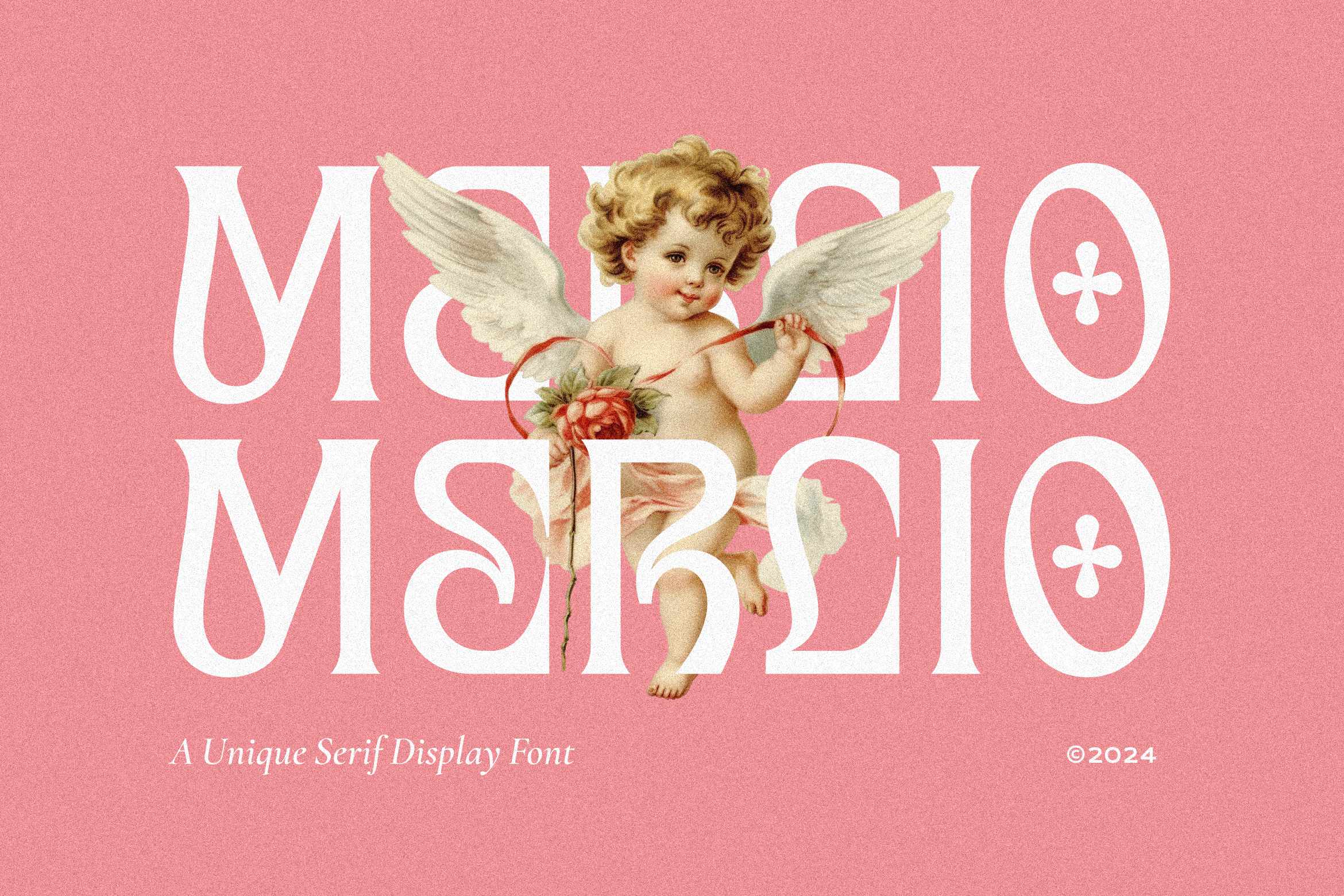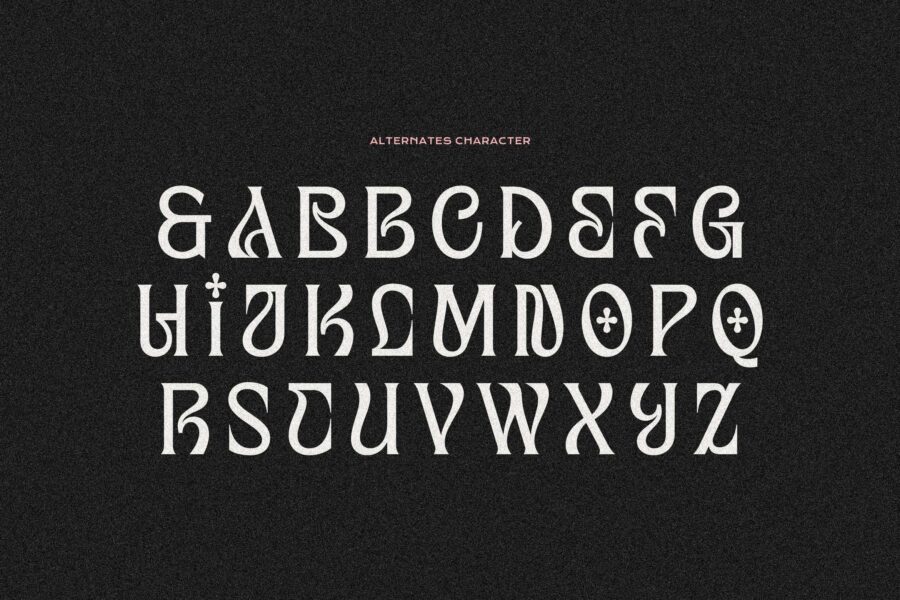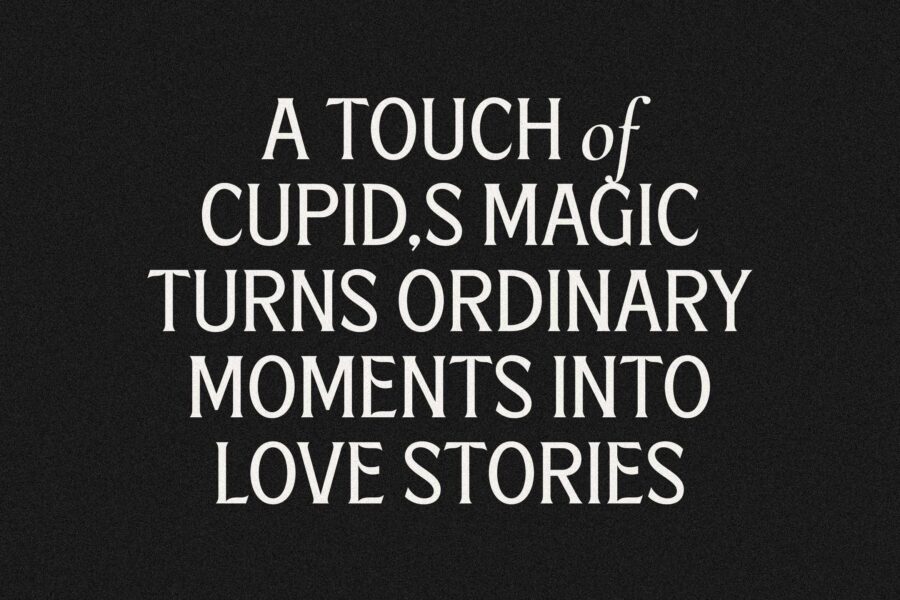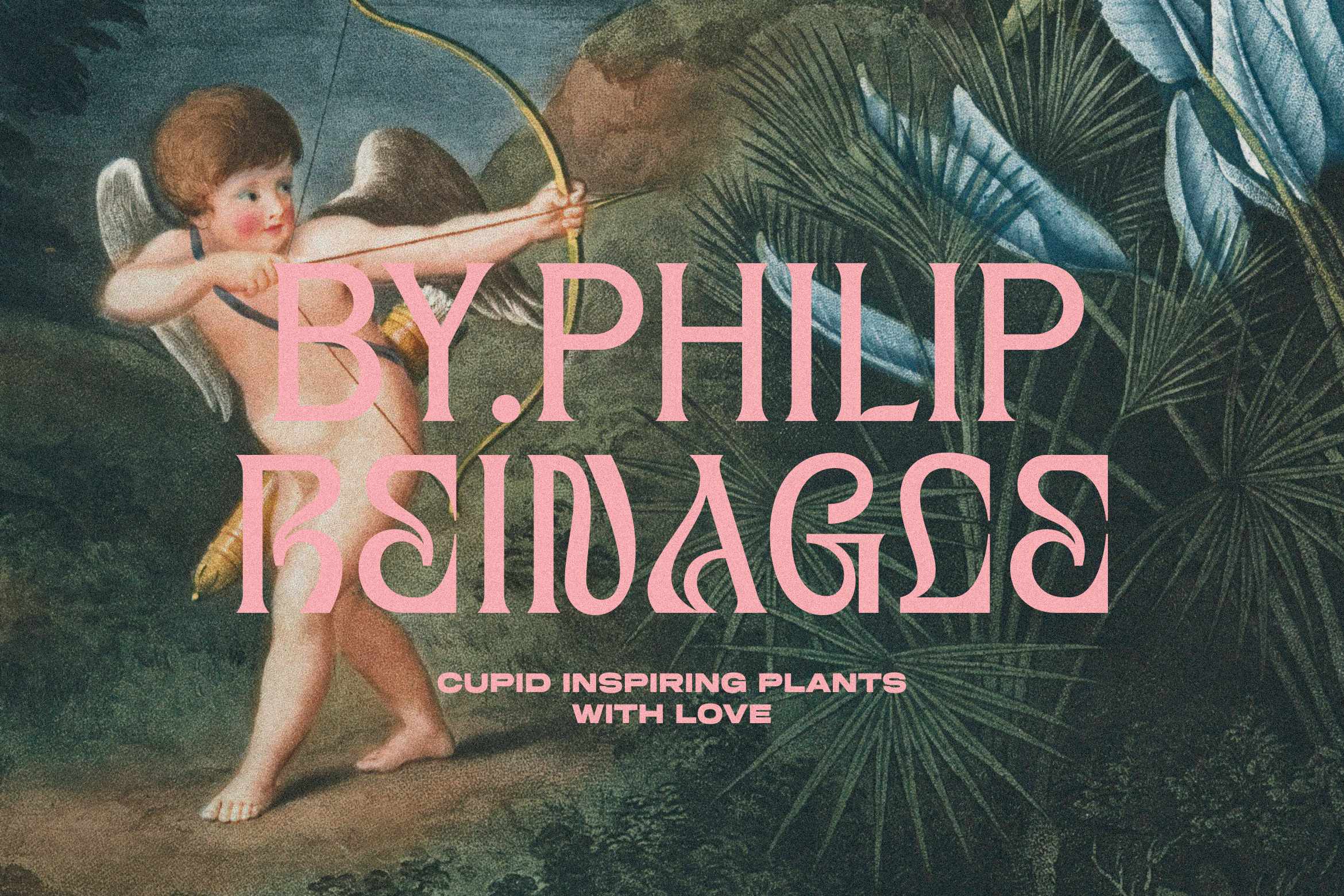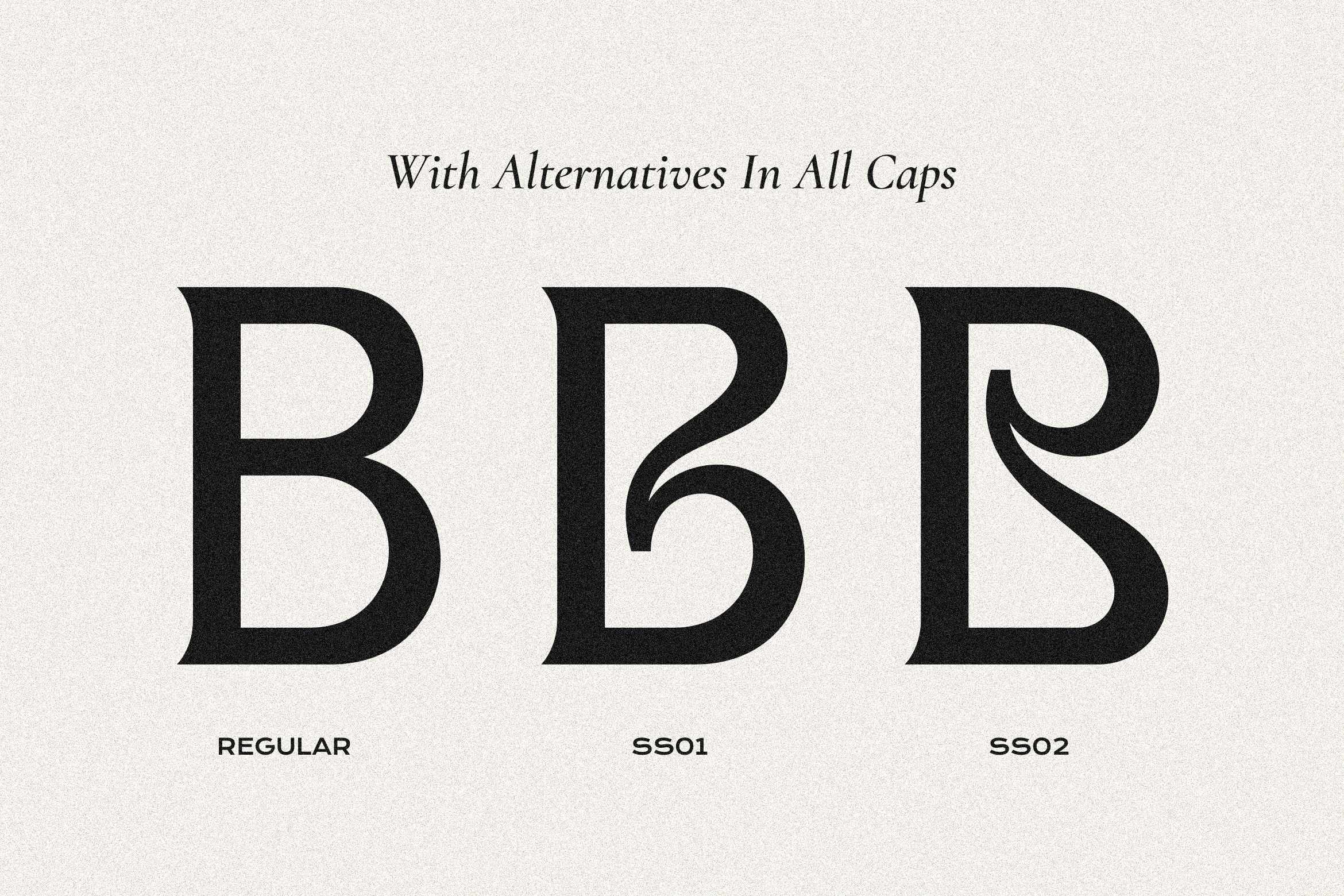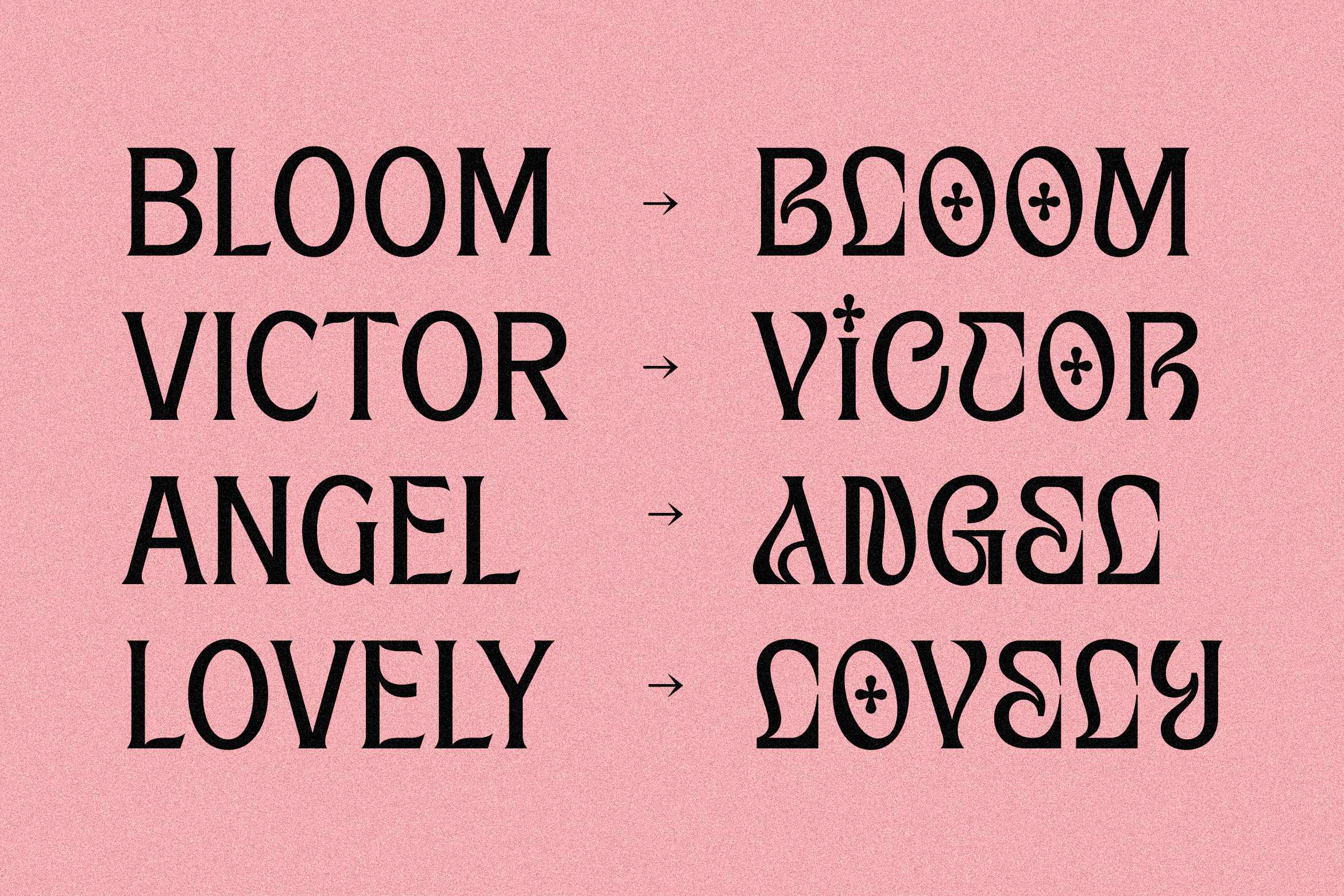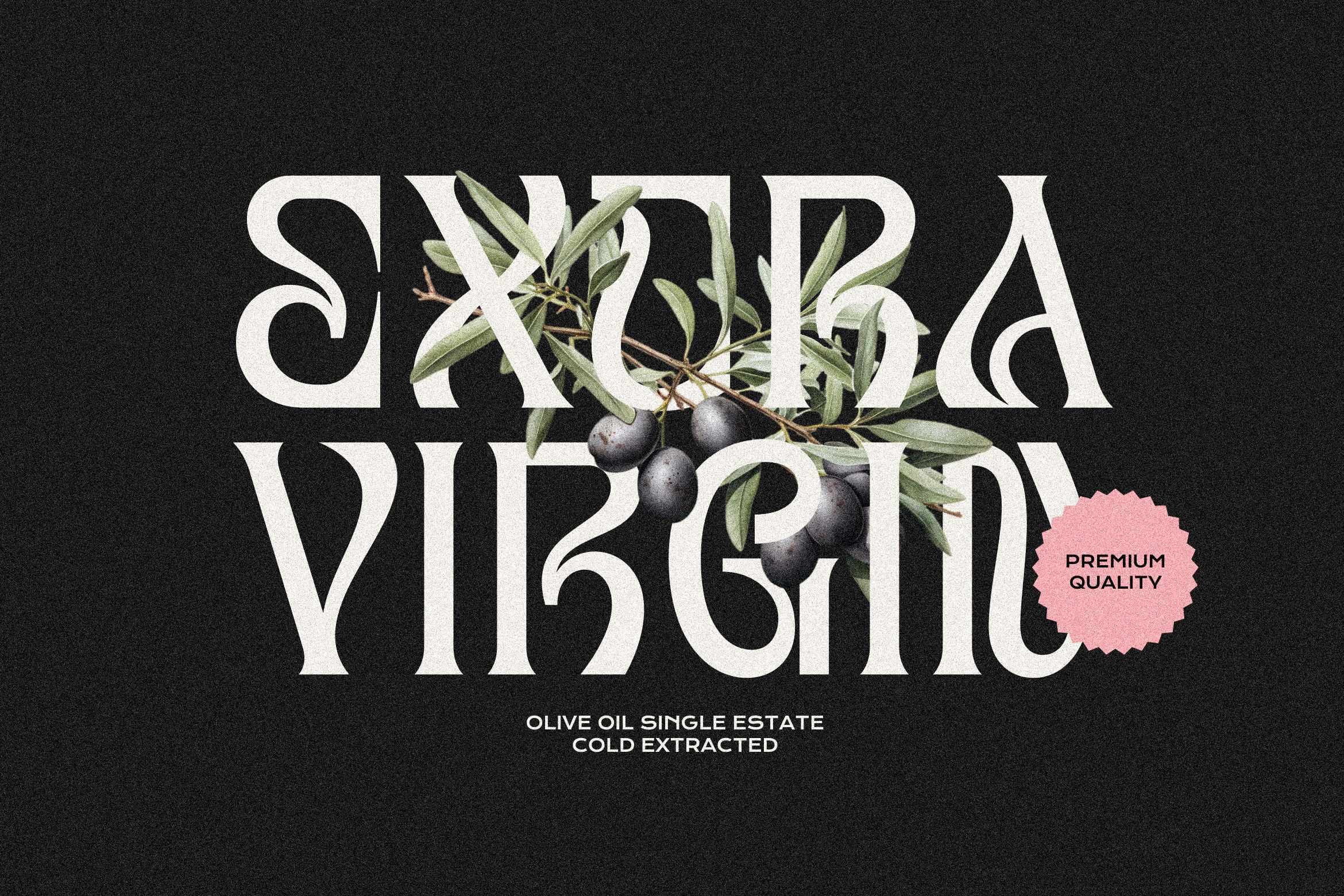
This display serif font blends romantic elegance with playful whimsy, inspired by vintage angelic motifs and ornamental typography. With high contrast strokes, gracefully flared serifs, and charming alternate characters featuring unique symbols and stylistic curves, it evokes a sense of nostalgia while offering modern flexibility. The font shines in editorial titles, packaging, romantic branding, and decorative artwork that needs both sophistication and personality.
Included are a full set of uppercase characters, numerals, multilingual accents, and two stylistic sets of alternates, offering endless creative potential. Whether you’re crafting love notes, luxury product labels, or angelic-themed posters, this typeface transforms text into a visual experience with divine flair and expressive detail.